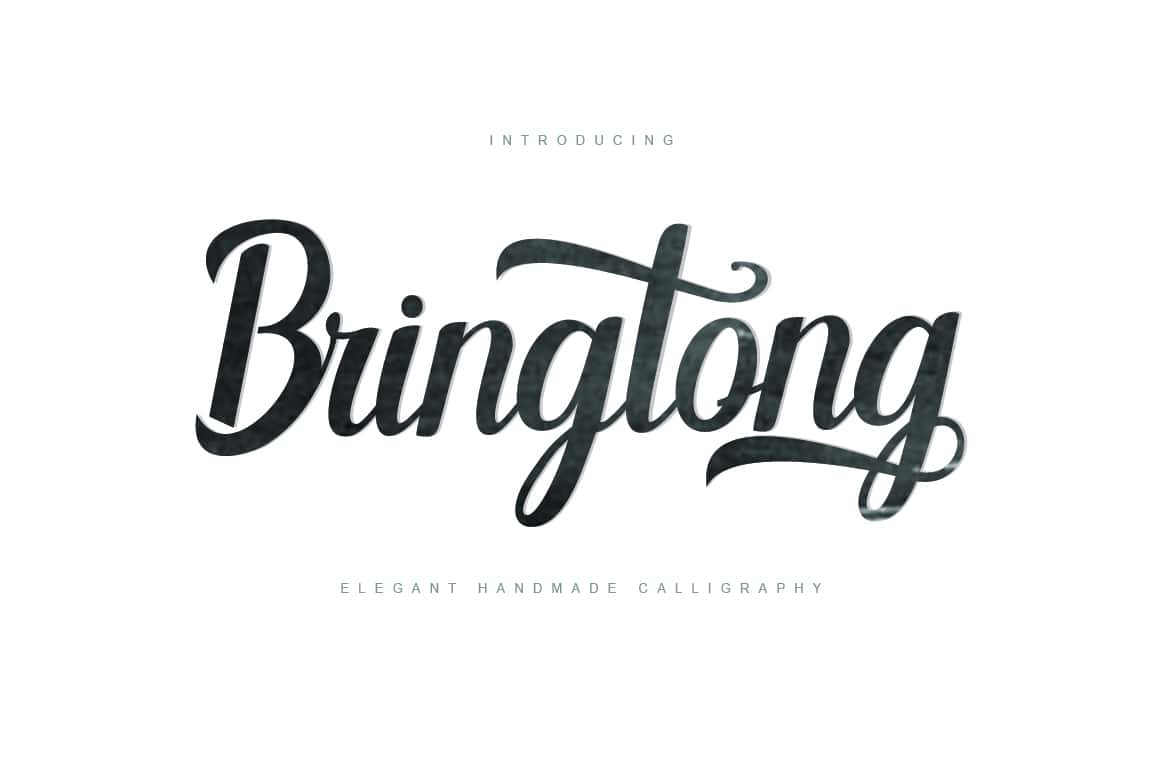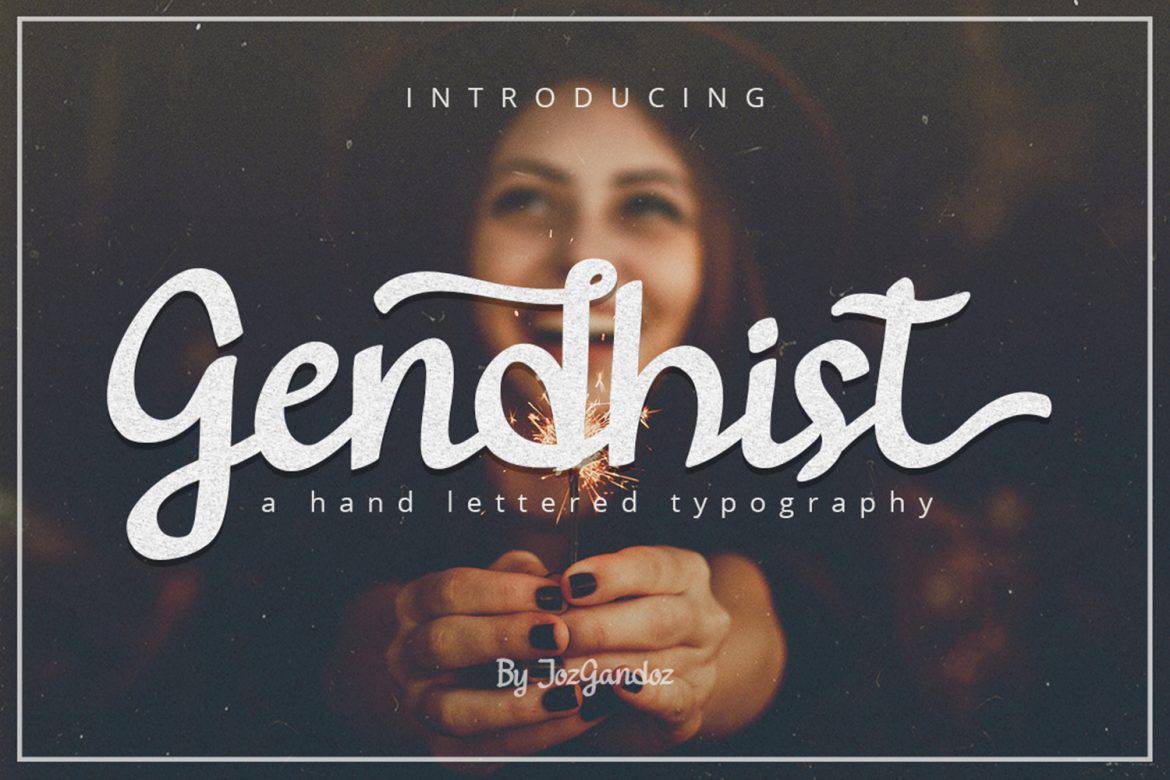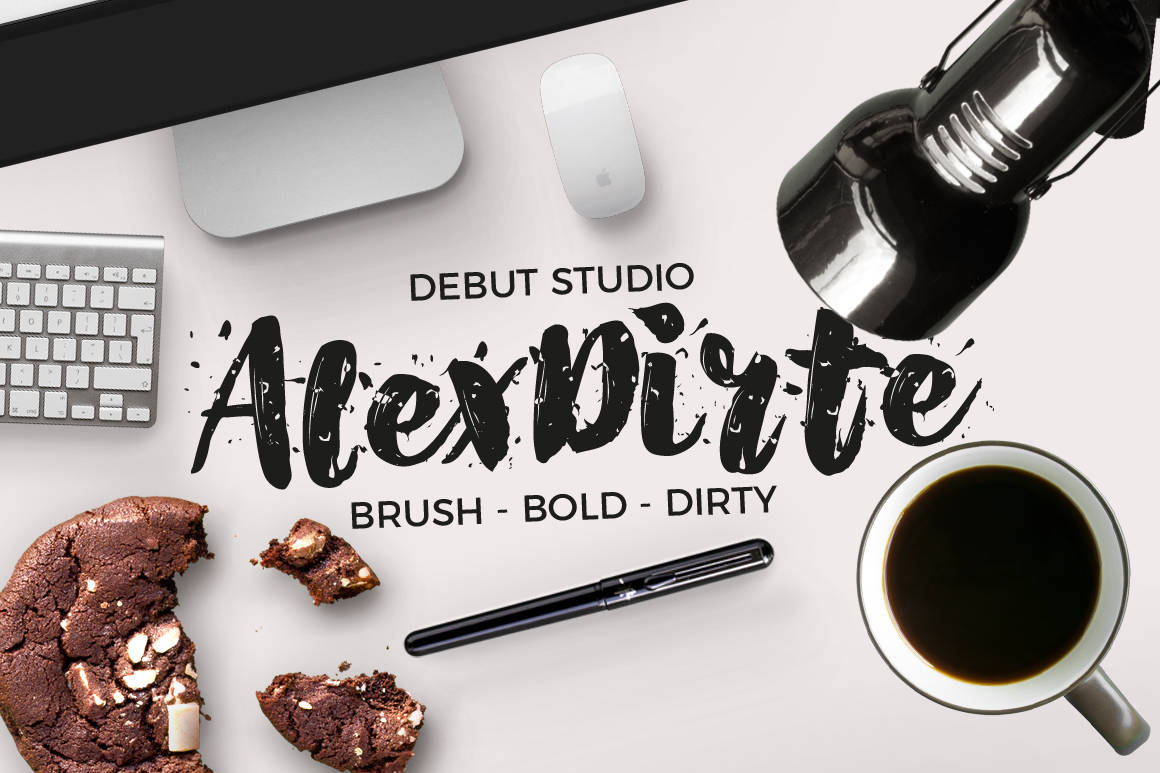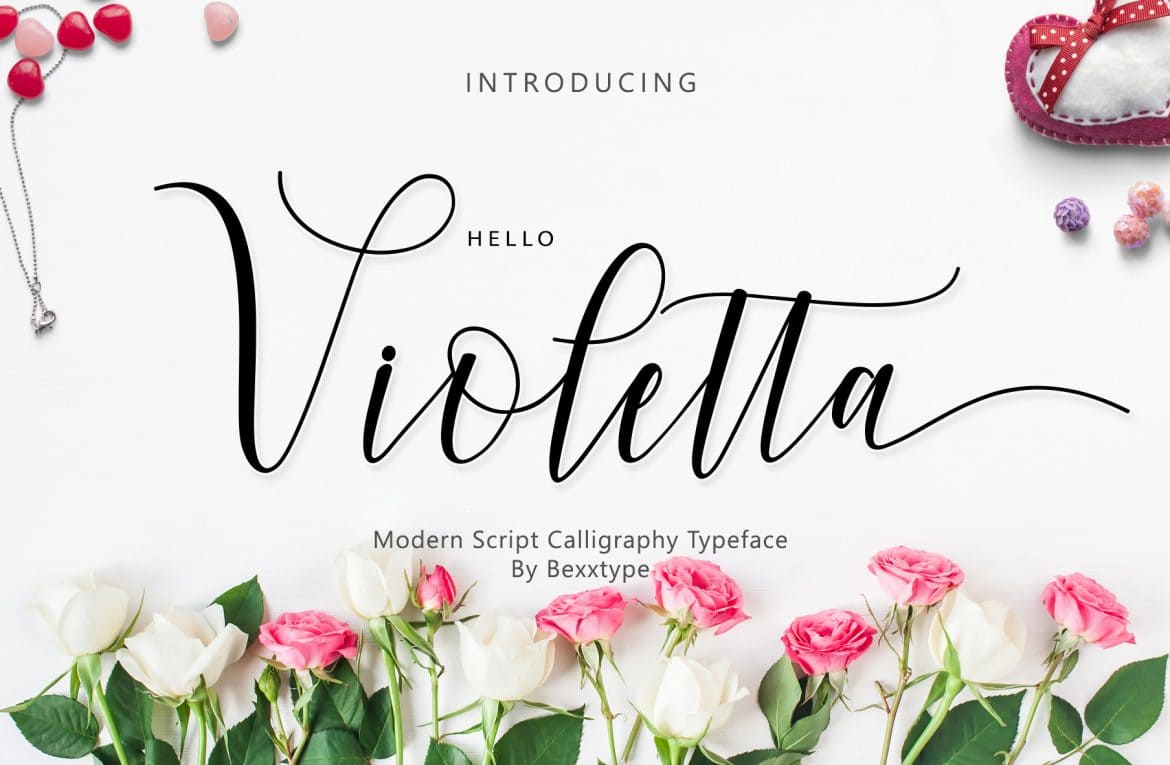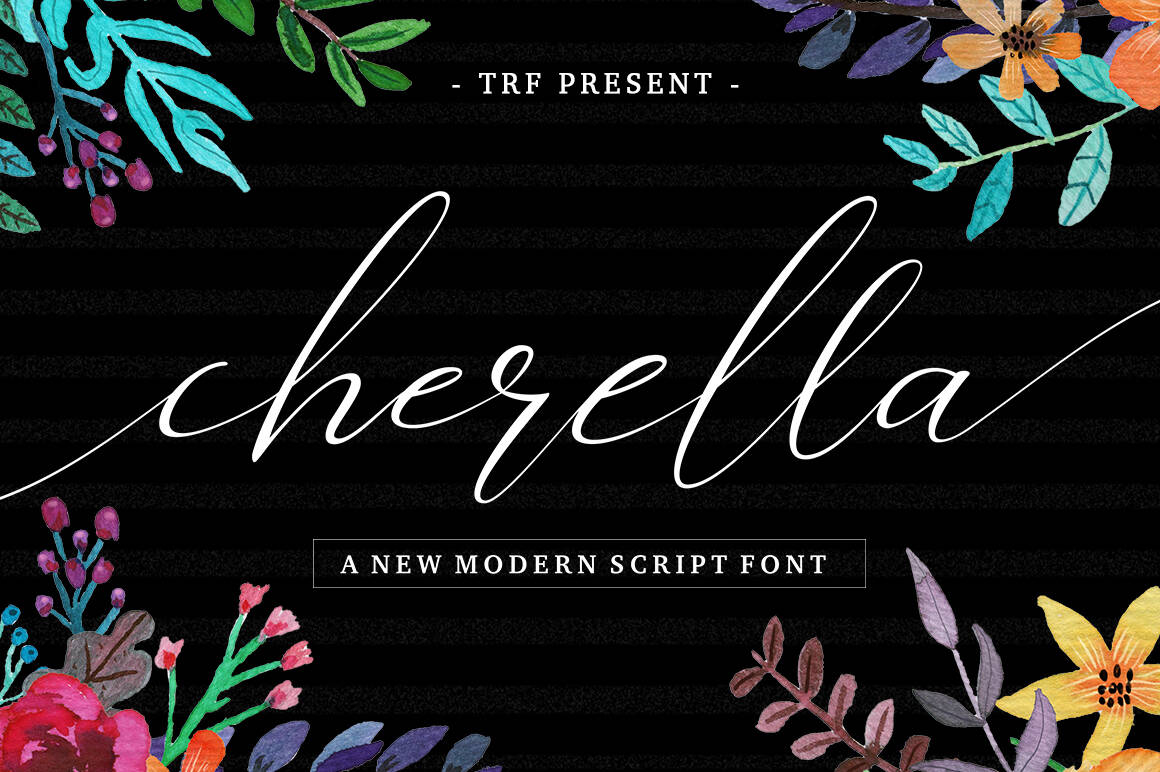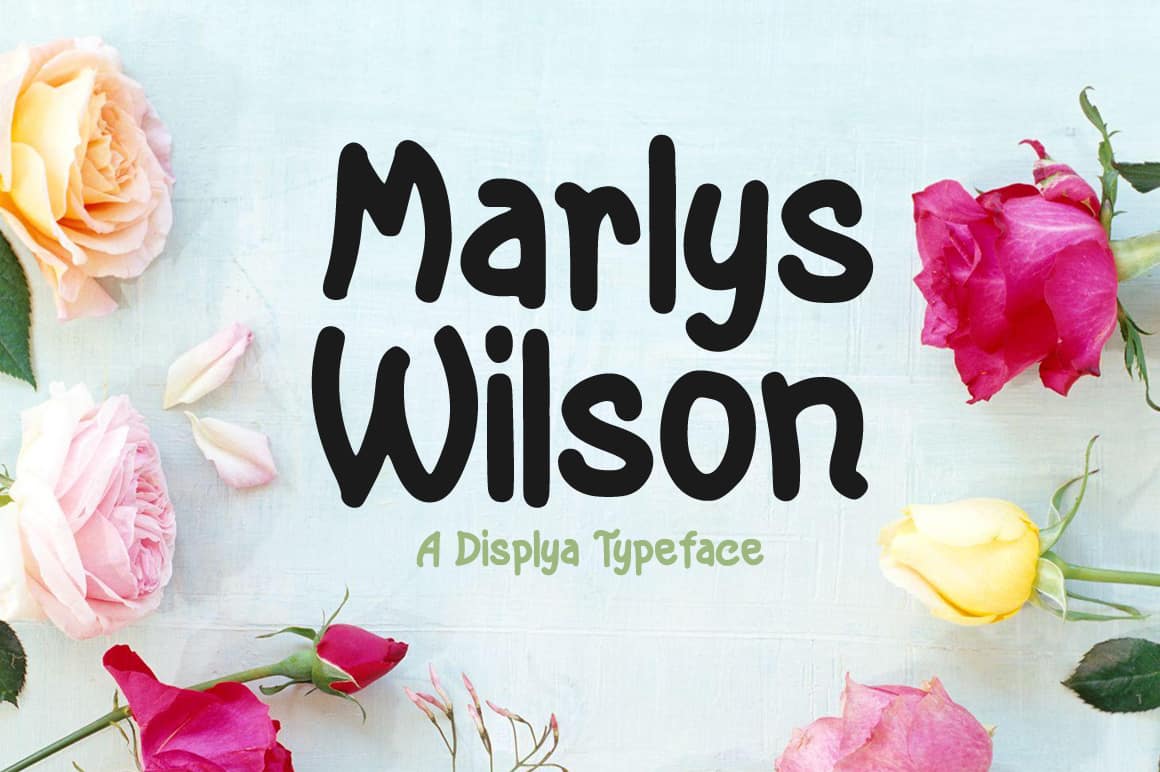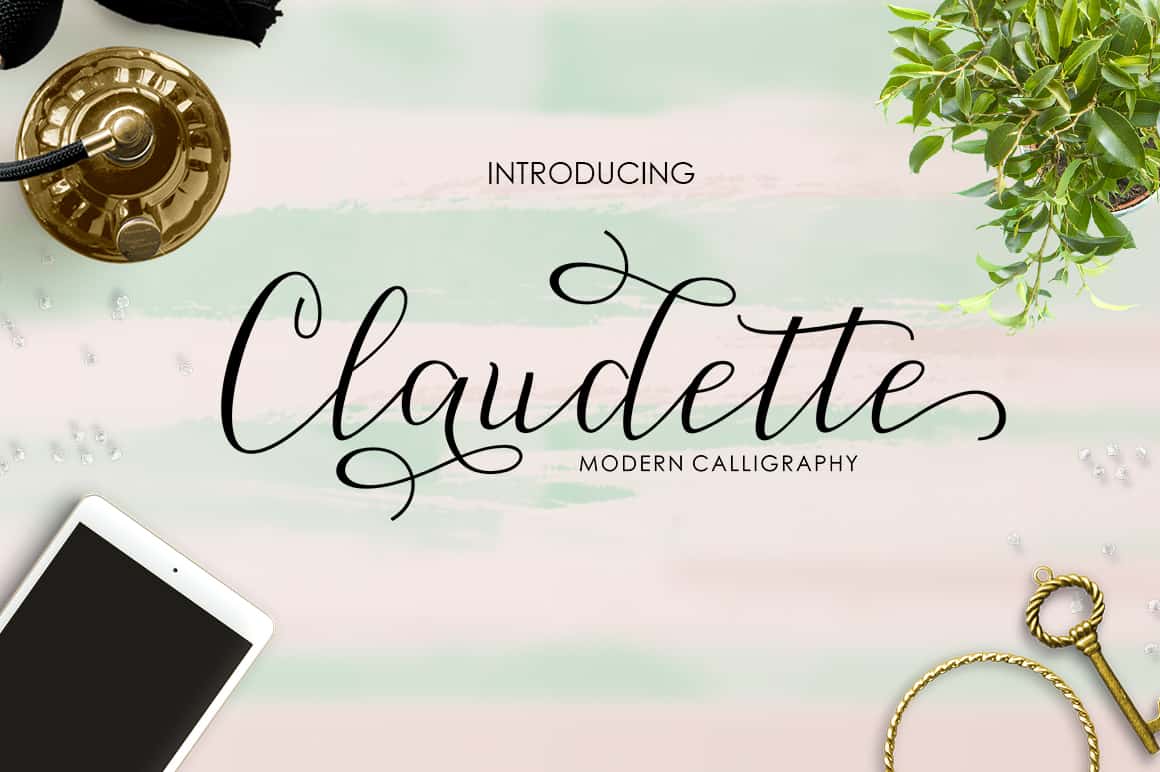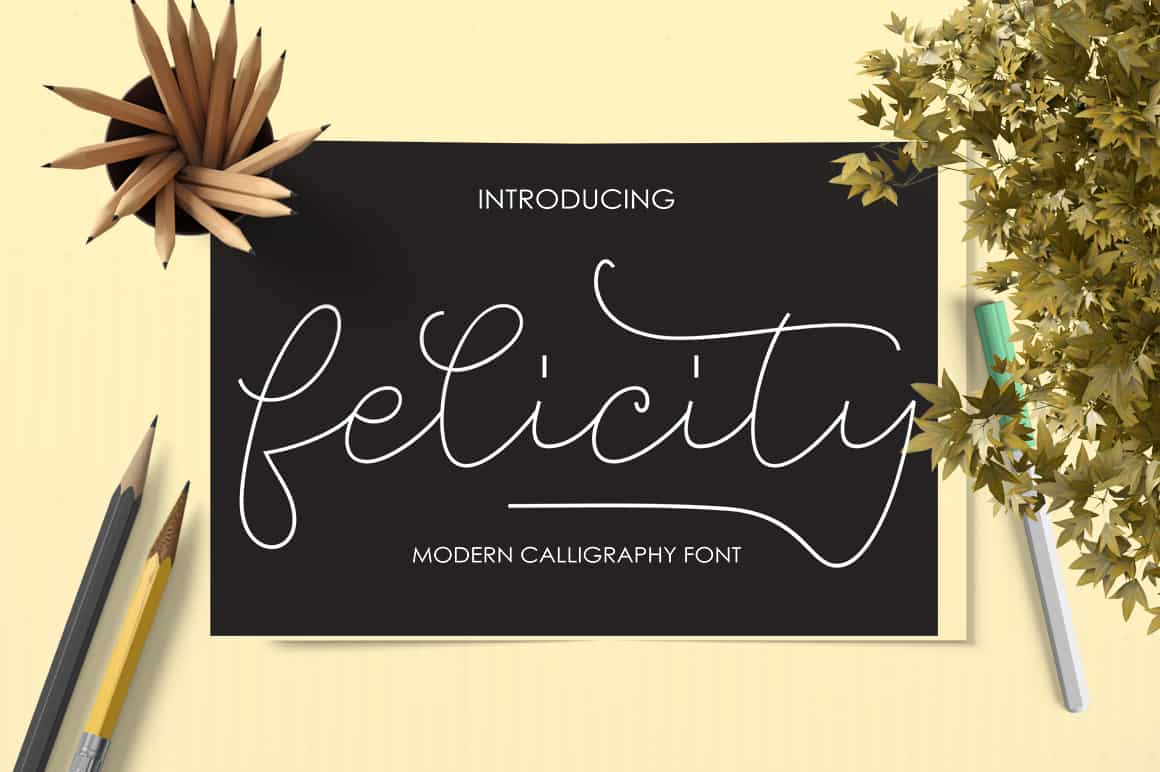
Bringtong is a modern brush script that draws inspiration from Hot Rod lettering.
It’s a versatile script that can be used for many occasions. It includes 362 unique characters and features many swashes and other alternate characters.
Gendhist is a super clean handwritten font.
Because of it’s thick letters it’s very expressive and works great for corporate & branding, but also for crafting (easy to cut).
This set of 2 stunning brush fonts consists out of AlexDirte Brush and AlexDirte Slant Brush.
Each letter has a dirty gritty texture giving it a rough look and feel.
Violetta is a modern handcrafter script. It comes with 526 unique glyphs that will help you make your designs stand out!
Cherella is a modern calligraphy font. It’s a flowing font that has an elegant, personal touch.
The Cherella font features over 400 unique glyphs and has 245 alternate characters.
Marlys Wilson is a simple, clean handwritten font.
Chitos is a hand lettered calligraphy font with a natural flow. It features over 250 unique glyphs.
Mellisa is a stunning handwritten script font that is packed with lots of swashes.
Claudette is a modern script font that comes in 2 weights: Regular & Bold.
This stunning script comes packed with swashes.
Felicity Script is a font with a calligraphic design. It comes in 2 weights: Regular & Bold.
It’s a casual font that features many beautiful swashes.